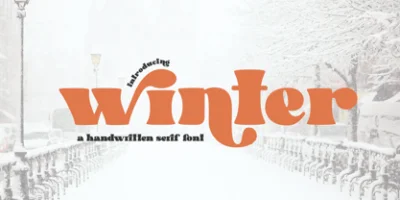
Winter Font
Winter Font is perfect for holiday campaigns, ski resorts, winter fashion brands, seasonal packaging, Christmas designs, winter sports companies, and cold weather communications. This crisp typeface brings winter elegance and seasonal sophistication to frost-inspired design projects.
Winter Font is exciting because it captures the pristine beauty of winter landscapes with its clean letterforms that convey seasonal elegance and crystalline clarity while maintaining exceptional readability and winter appeal across seasonal applications.
The Winter Font family includes regular and decorative variations with winter-inspired character elements and seasonal styling details. This frosty collection provides designers with crisp options for creating memorable and seasonally beautiful brand experiences.
Winter Font offers designers access to a seasonally crafted typeface that embodies the serene beauty and elegant simplicity of winter environments. This crisp font features cleanly designed letterforms with winter details that create immediate associations with snow, seasonal elegance, and winter sophistication. The typeface showcases clean proportions and seasonal aesthetics that enhance winter communications while maintaining professional functionality and broad accessibility. Its seasonal character makes it particularly suitable for winter brands and seasonal businesses that require typography capable of conveying winter beauty, seasonal elegance, and crystalline sophistication. Winter Font delivers exceptional seasonal impact for applications where warm fonts feel inappropriate for winter communications and cold weather branding. The font's winter appeal and seasonal aesthetic make it an essential tool for designers working on projects that require typographic expression of winter beauty, seasonal elegance, and cold weather sophistication that resonates with audiences seeking authentic winter experiences and seasonal visual communication.